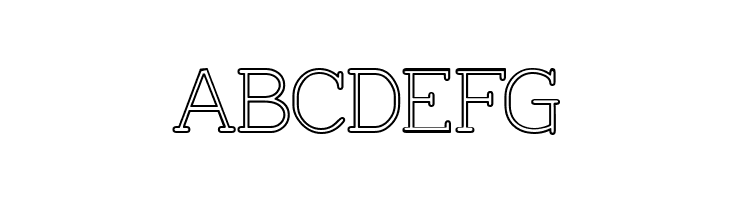
Northstar Half-Tone Italic Font
- Font: Northstar Half-Tone Italic
A modern outline font with a double-line effect, offering a unique and dimensional look.